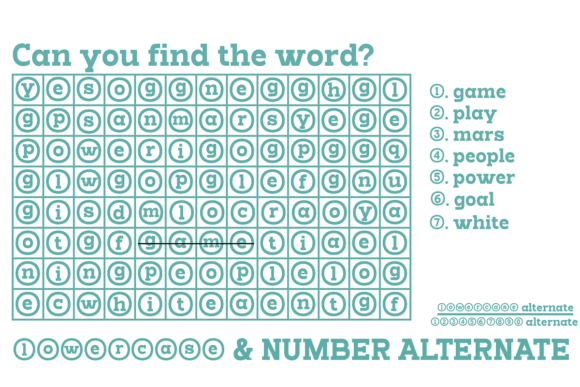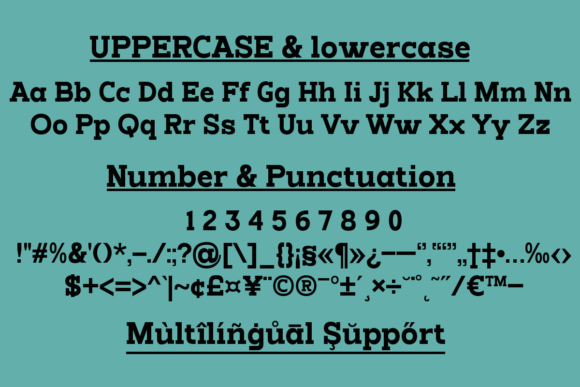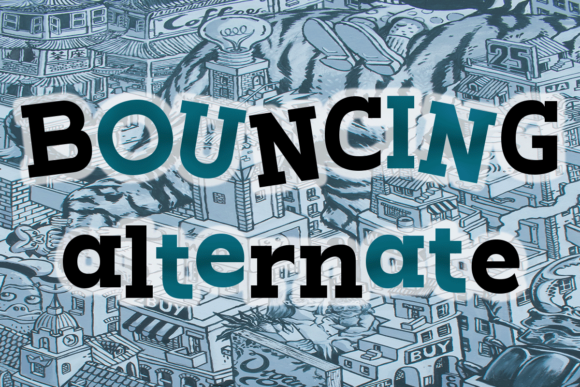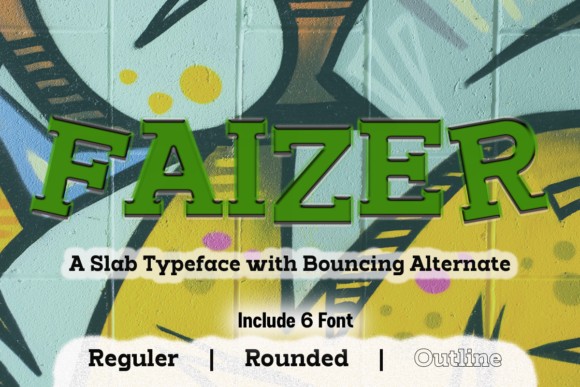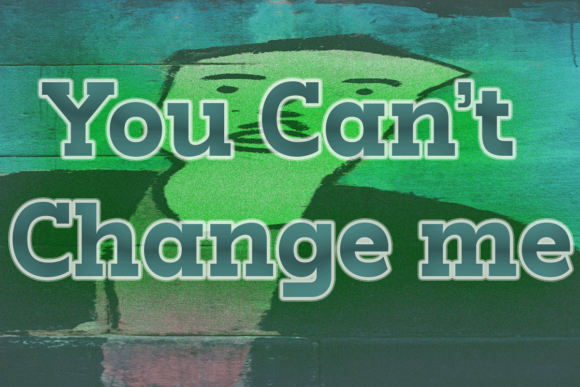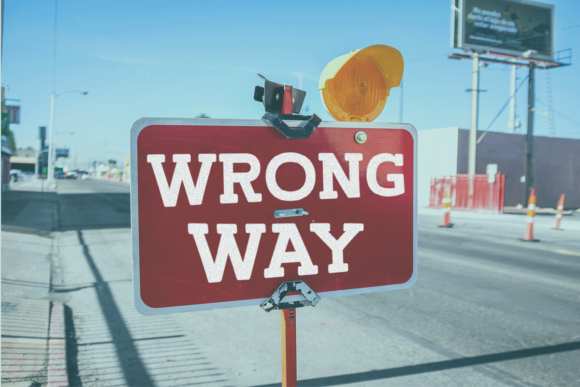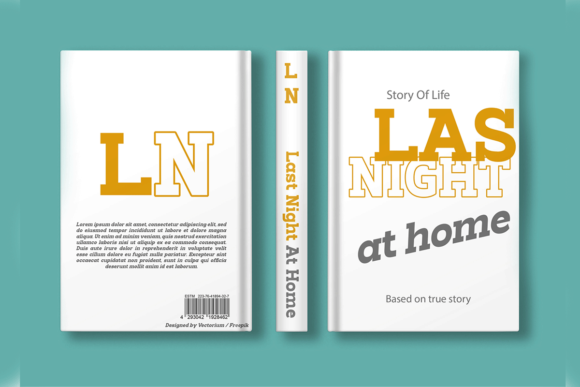
Faizer: A Cool, Bold and Thick Slab Serif Font
Faizer is a distinctive slab serif font that combines coolness with bold, thick letterforms. This versatile typeface is PUA encoded, allowing easy access to all glyphs and swashes, making it a powerful tool for designers looking to create impactful typography.
Key Features of Faizer
- Cool Design: Features a trendy and appealing appearance that resonates with modern design trends.
- Bold Aesthetic: Offers a strong and impactful look that commands attention.
- Thick Letterforms: Incorporates substantial characters for maximum visual impact.
- Slab Serif Structure: Maintains the characteristic thick, rectangular serifs typical of slab serif fonts.
- PUA Encoded: Allows easy access to all glyphs and swashes for enhanced design flexibility.
- Versatile Application: Suitable for a wide range of projects, from branding to editorial designs.
Ideal Uses for Faizer
Faizer’s unique characteristics make it particularly well-suited for:
- Bold headlines and titles
- Logo design and branding projects
- Poster and advertisement layouts
- Book covers and editorial designs
- Social media graphics and digital content
- Packaging design for products aiming for a strong visual presence
When incorporating Faizer into your designs, consider the following tips:
- Utilize the PUA encoding to access all glyphs and swashes for creative typography
- Use for headlines or short blocks of text to maximize its bold and cool impact
- Experiment with different sizes to highlight the font’s unique thick details
- Consider pairing with simpler sans-serif fonts for body text to create contrast
Faizer is an excellent choice for designers looking to add a cool, bold, and thick slab serif font to their typographic toolkit. Its PUA encoding and distinctive style make it stand out in the world of typography. Whether you’re working on logo designs, creating layouts for impactful advertisements, or developing content that requires a strong visual presence, Faizer offers the perfect blend of coolness and boldness.